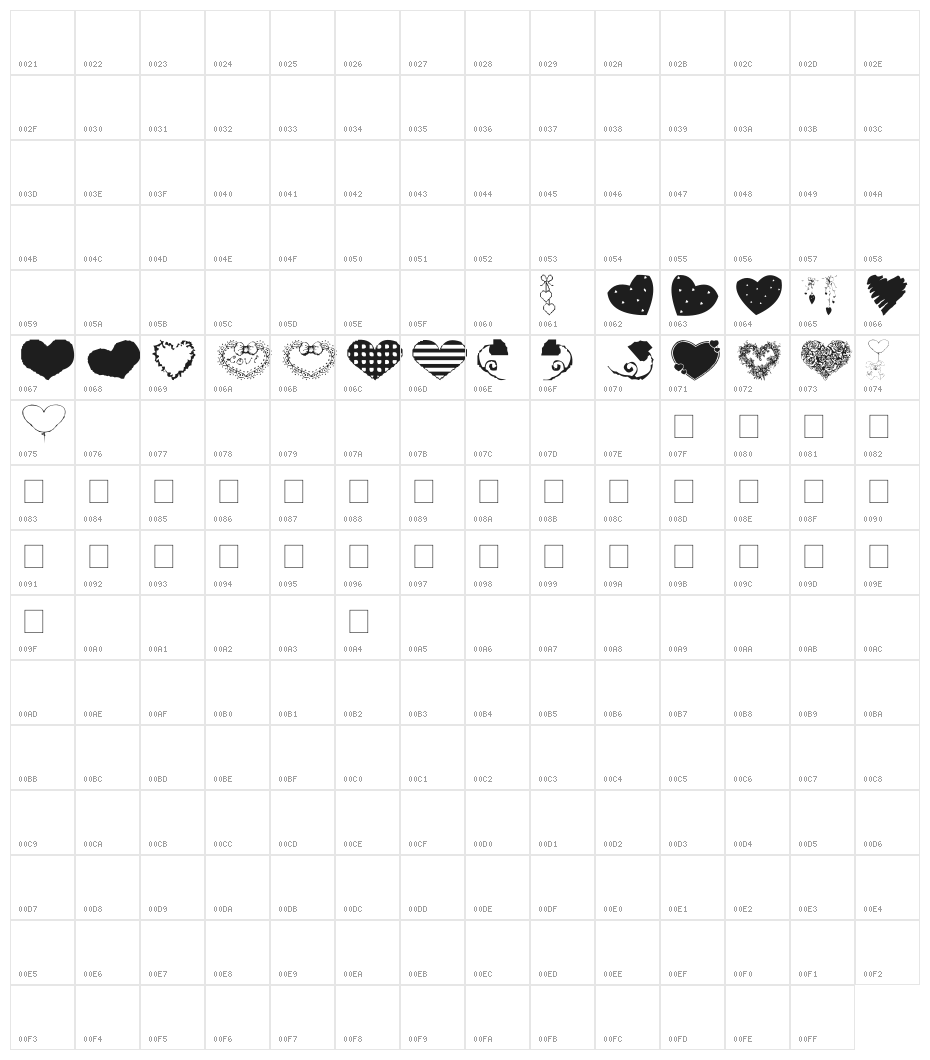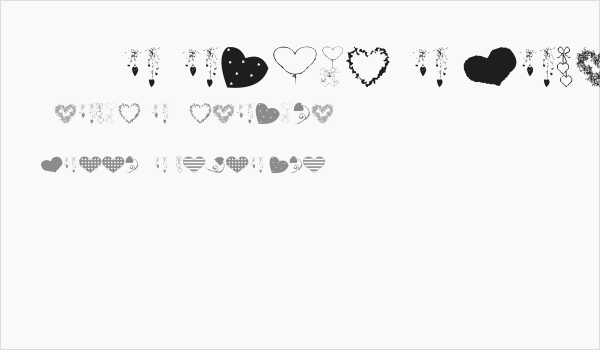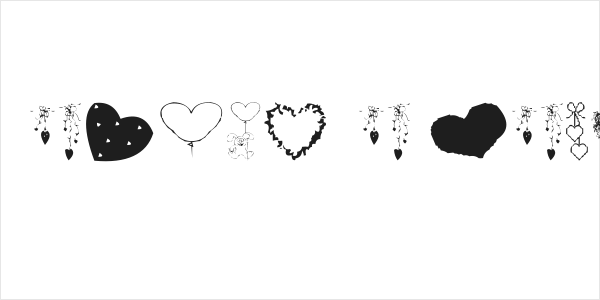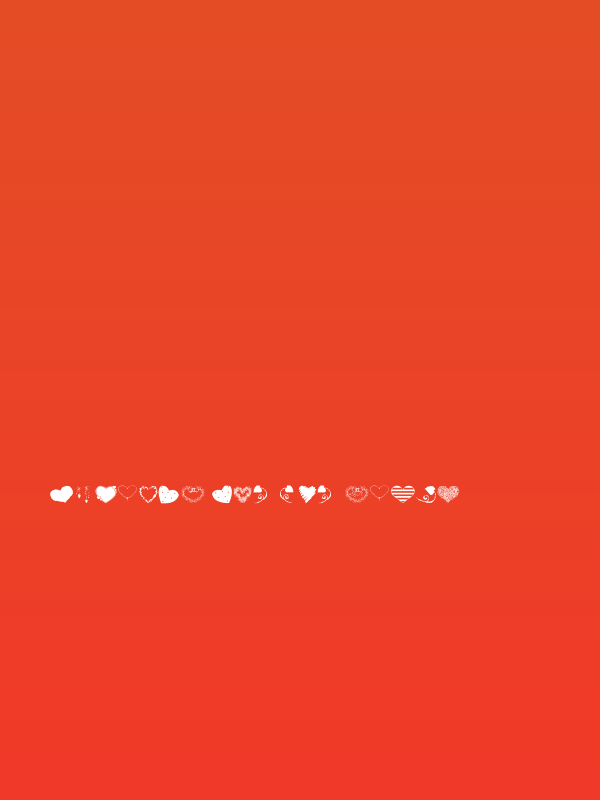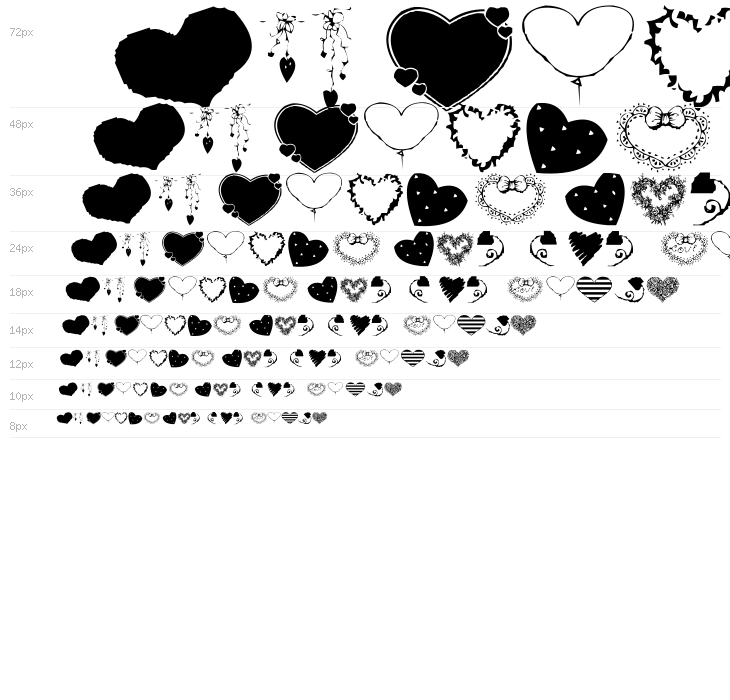
AEZ executive hearts Font
A decorative dingbat font featuring a variety of heart-themed symbols, including solid, patterned, floral, and outlined hearts, as well as hearts with embellishments and intricate designs.
Overall StyleDecorative, Romantic, Playful
Use CaseDecorative elements, Icons, Themed graphics
Proposed ProjectsValentine's Day cards, romantic invitations, scrapbooking, decorative headings, social media graphics.